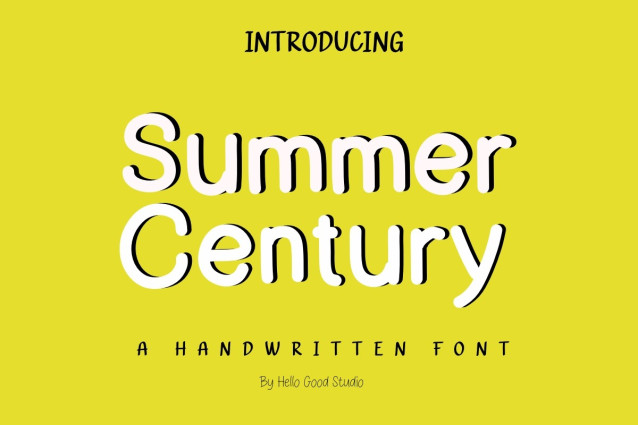
Summer Century Font
Summer Century Font a sweet and friendly handwritten font. Cute and fun, this font is ideal for writing wedding invitations, cards, or any other design that might need a fun touch!